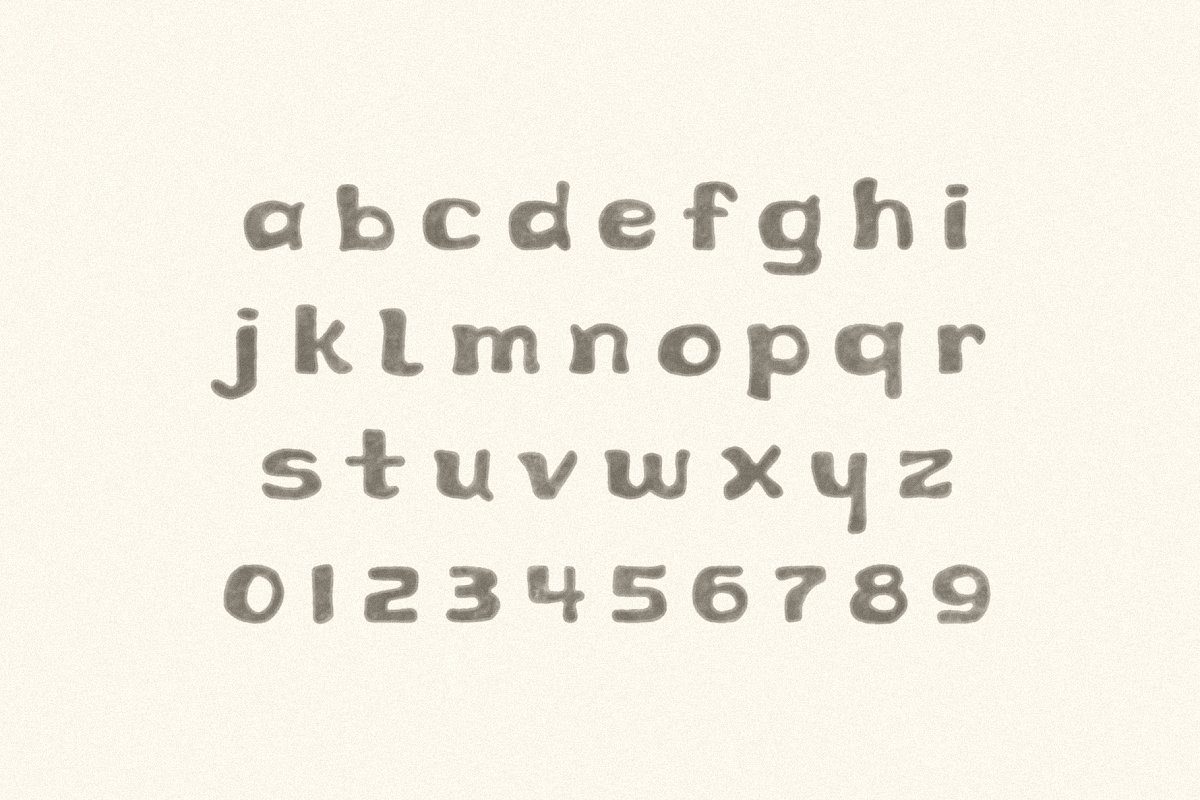
About the Kona
KONA – A hand crafted display font, made with aloha by Lauren Kilbane, Use this font for: ads, album covers, apparel, cards, flyers, invitations, logos, menus, merchandise, packaging, signage, web, and more, TTF & OTF filesUppercase and Lowercase lettersStandard English alphabetNumbers, Currency Symbols, Standard PunctuationCOMMERCIAL & EXTENDED LICENSES are required for web fonts, apps, ebooks, broadcast television, commercial exhibition, film, gaming, software embedding, customized print on demand products, etc